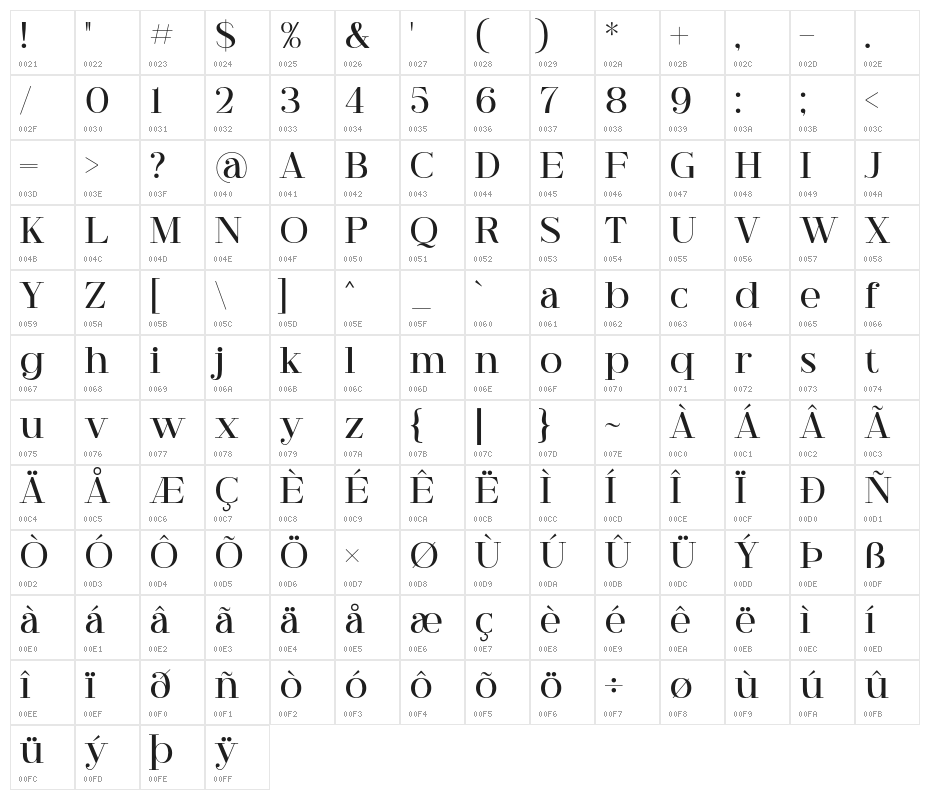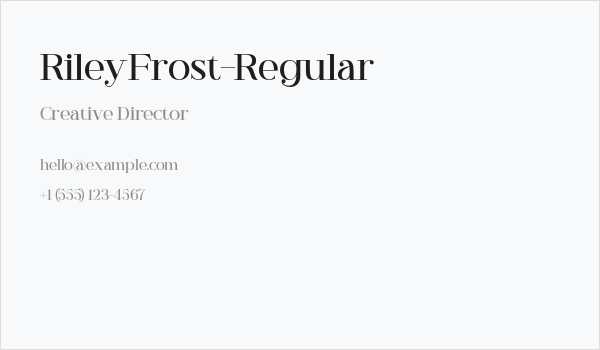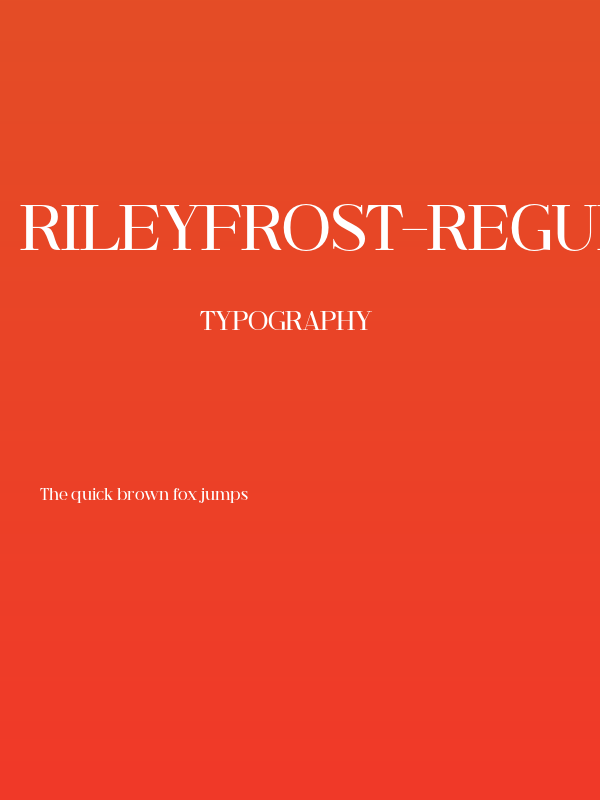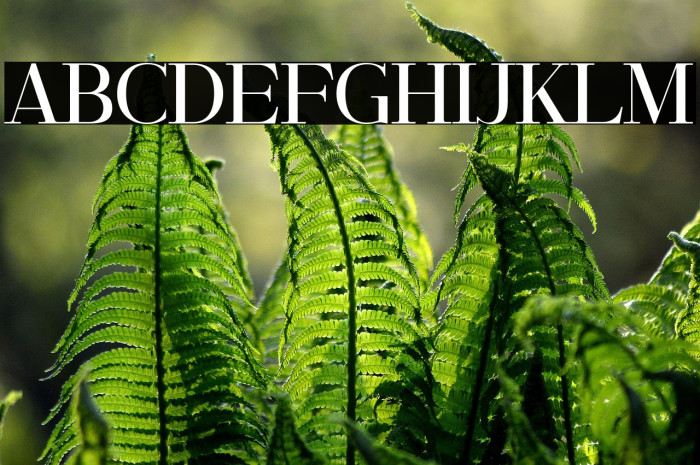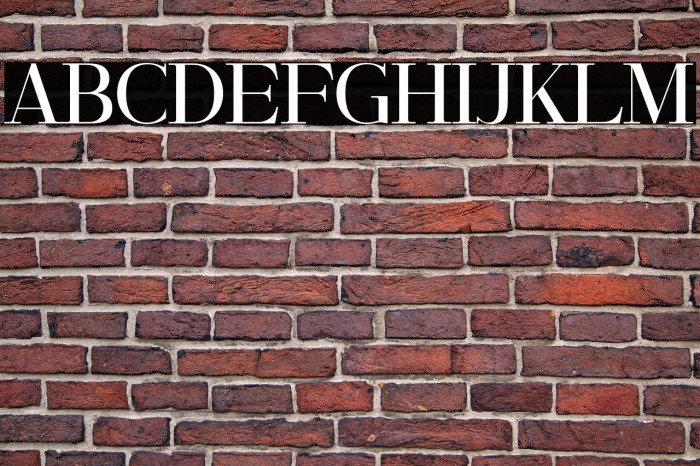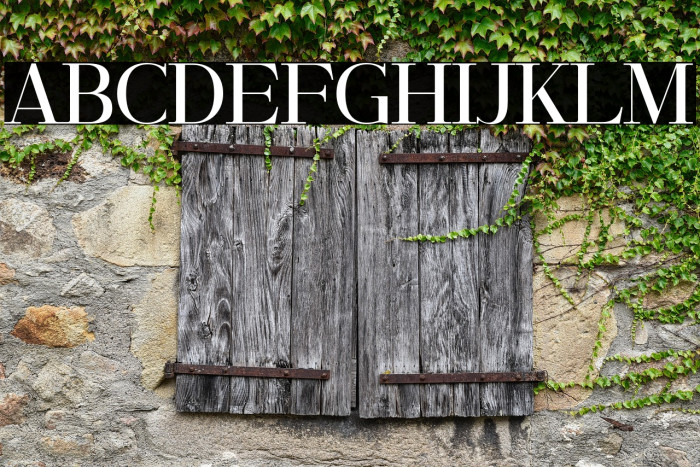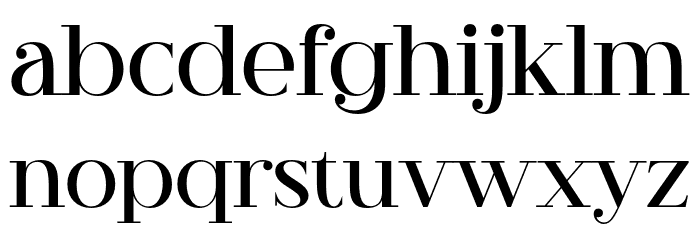
RileyFrost-Regular Font
RileyFrost-Regular Description
This elegant serif font features a refined and sophisticated design, characterized by its high contrast between thick and thin strokes. The uppercase letters exhibit a classic and timeless appeal, with sharp serifs and a balanced proportion. The lowercase letters maintain a harmonious flow, enhancing readability while preserving the font's stylish nature. The numerals are distinct and clear, complementing the overall aesthetic. Special characters are thoughtfully designed, ensuring versatility across various applications. This font exudes a sense of luxury and professionalism, making it suitable for high-end branding and editorial projects.